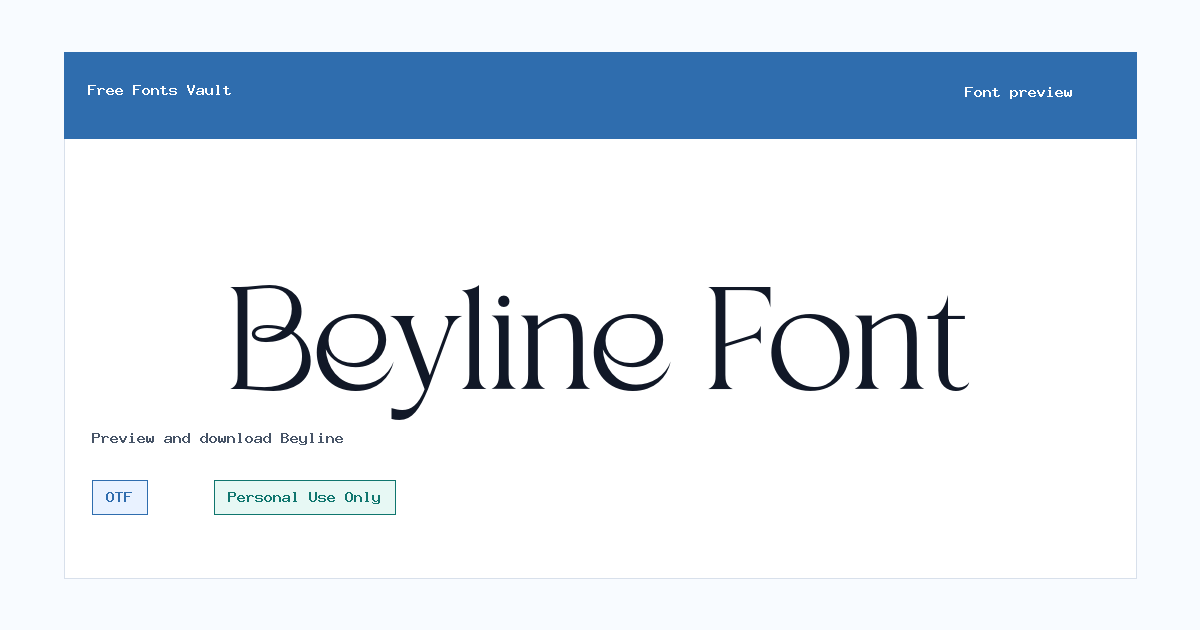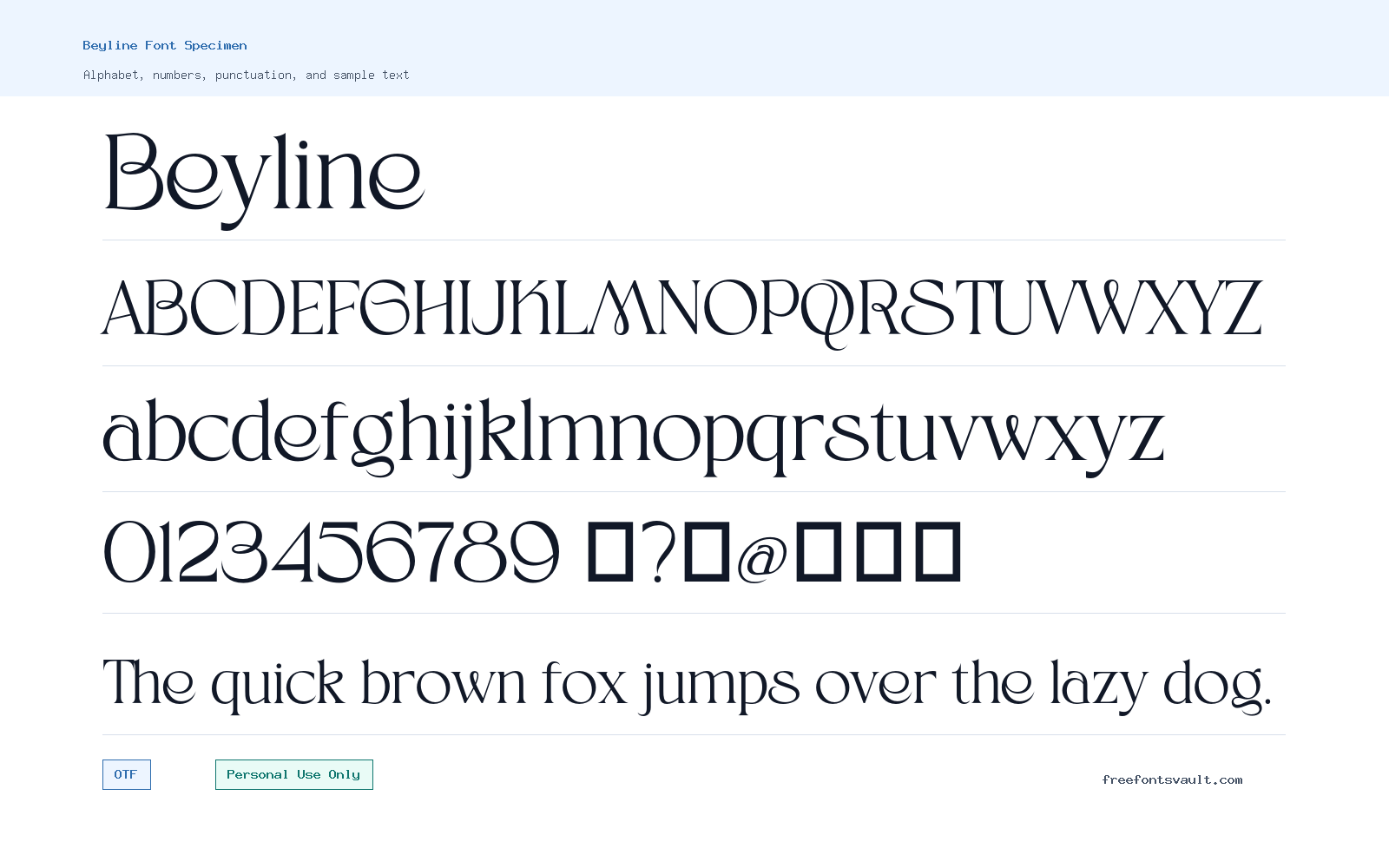
Beyline
Beyline font.
Beyline is a serif font from Afkari Studio with a regular OTF file for preview and personal projects. It is a good font to test when you need a polished title style without adding too much visual noise.
About Beyline Font
Beyline works best when you let the letterforms breathe. Use the preview box to try the exact words you plan to design with, especially names, short headings, brand-style text, and display lines. Since the listed file is a regular 400-weight OTF, it is better suited to clean title use than to heavy text systems with many weights.
For practical design work, start with short phrases and check spacing at the size you need. Serif fonts can look elegant in large settings, but they may lose clarity if used too small or packed into tight layouts. Test uppercase, lowercase, numbers, and punctuation before using it in a finished design.
- Serif style, making it a natural choice for refined headings, name marks, and editorial-style display text.
- Single 400-weight variant, so layout testing should focus on size, spacing, and contrast rather than weight changes.
- Logos, wordmarks, and short brand-style text for personal concept work.
- Invitations, quote graphics, social posts, and decorative headings where the text stays brief.
- Mood boards, portfolio mockups, and typography tests that need a clean serif voice.
What is Beyline best used for?
Beyline is best tested for short display text such as headings, names, invitations, logo concepts, quote images, and personal design mockups.